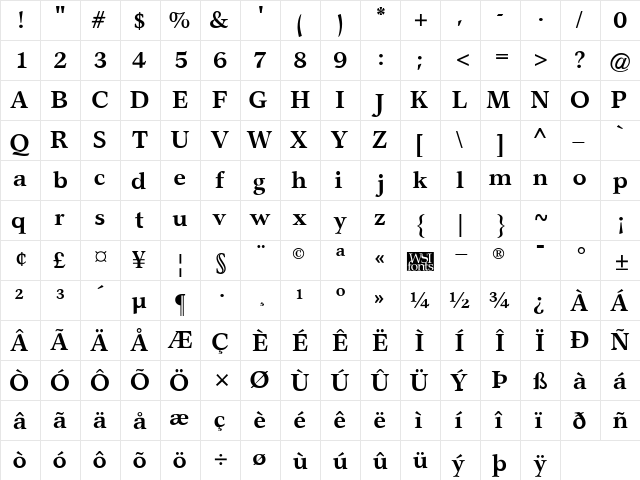
Steward Bold
Design Context for Steward Typeface
Steward takes a measured approach to typography — its balanced proportions and neutral character make it a reliable workhorse for both digital and print work. The heavy weight commands attention and anchors typographic hierarchies.